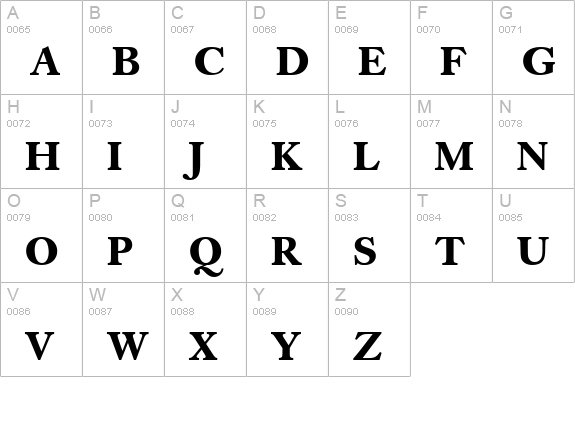
Caslon Book BE Bold Font Details
Caslon Book BE Bold is a comfortable, highly readable variant in the Caslon typeface family \xE2\x80\x94 well suited to long-form body text, articles, and editorial content.
Caslon Book BE Bold font is a timeless and classic typeface that exudes elegance and sophistication. With its bold weight, this font commands attention and makes a strong statement in any design project. The sturdy and well-defined serifs give the text a sense of stability and authority, making it ideal for headlines and titles. What sets Caslon Book BE Bold font apart is its versatility – it can be used for a wide range of design applications, from editorial layouts to branding materials. Its clean and legible design ensures readability across different platforms and mediums. And the best part? Caslon Book BE Bold font is available for free download at FontsMarket.com. This means you can easily access this beautiful typeface and incorporate it into your projects without any cost. Don't miss out on this opportunity to enhance your designs with the timeless charm of Caslon Book BE Bold font.